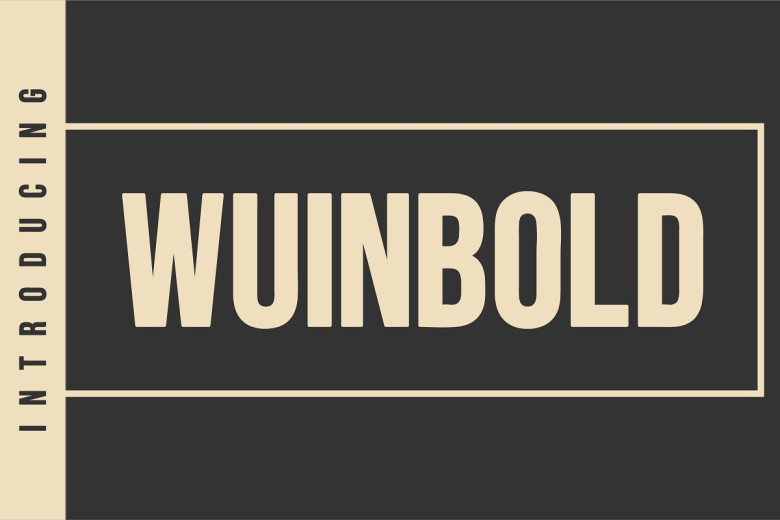
Wuinbold Font
Wuinbold will be an impressive sans-serif font with a luxurious feel, perfect for use across various applications from social networking posts to birthday cards – the only limit lies with your creativity!
Wuinbold Sans Serif Font